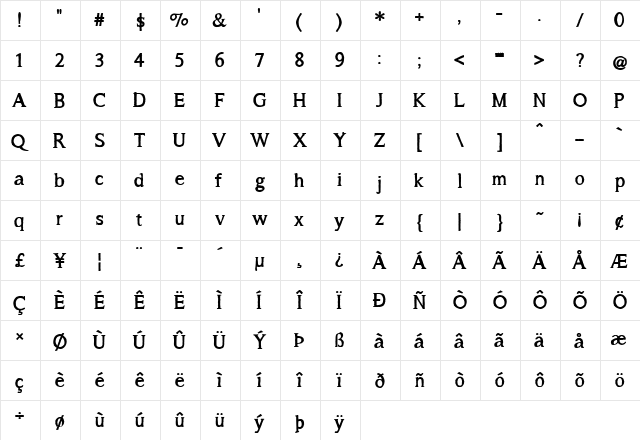
a song for jennifer Bold
| Designer | Brittney Murphy |
Design Context for a song for jennifer Typeface
a song for jennifer is a composed and adaptable typeface that performs quietly and consistently across a wide range of design contexts. Its bold stroke weight gives it real presence on the page.